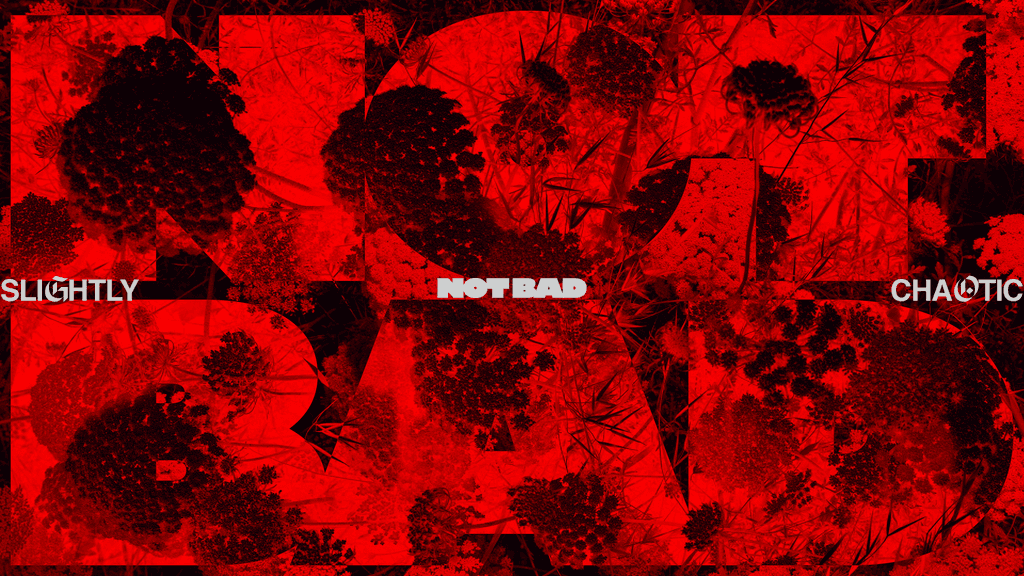
OVERVIEW
NOT BAD operates as a creative platform working across art, design, music, and community. It brings people, ideas, and projects together through collaboration, producing work that is culturally relevant, expressive, and intentionally unpolished. Less about outputs, more about momentum. We led the creative direction and identity system—creating a visual language that feels loose by design, but intentional in execution.
SETTING THE TONE
NOT BAD was conceived as a deliberate contradiction. The name undersells by design. Confident without bravado, sharp without apology. From the outset, the brand needed to feel self-aware, culturally fluent, and unafraid of friction. The guiding idea became a simple but loaded positioning: Unapologetically sharp. Slightly chaotic. Fully capable. Not as a tagline, but as an operating system for how the brand behaves, speaks, and shows up in the world.
CONTROLLED CHAOS
The visual identity walks a careful line between order and disruption. Bold typography, high-contrast colour, and aggressive scale are offset by a disciplined underlying structure. Chaos is introduced intentionally through type remixing, image treatment, and layout tension but always anchored by a clear axis and hierarchy.
TYPOGRAPHY WITH ATTITUDE
Typography plays a central role in shaping tone. Heavy, unapologetic weights establish confidence, while controlled mixing introduces rhythm and instability. Alignment shifts, spacing flexes, and hierarchy is occasionally disrupted. Never randomly, but in service of energy and emphasis. The result is a typographic voice that feels direct, slightly confrontational, and unmistakably assured.
NOT BAD demonstrates that strong brands don’t need to choose between discipline and expression. When structure is clear, energy can be turned up without losing control. The identity succeeds not because it behaves perfectly, but because it knows exactly how far it can be pushed.